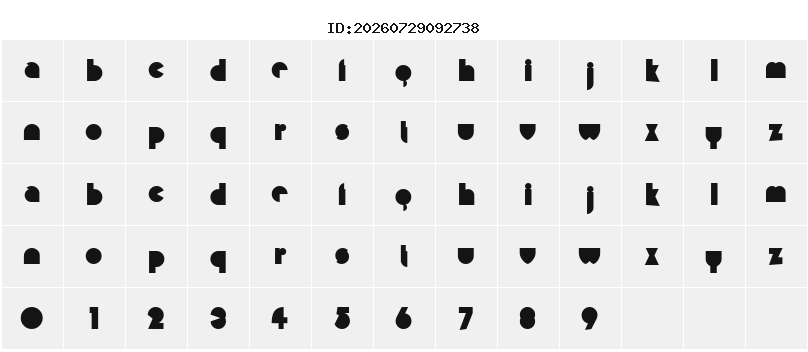
JI-Nimrod Preview
• Font Name: JI-Nimrod
• Full Font Name: JI-Nimrod
• Designer: JupiterImages
About JI-Nimrod.ttf
JI-Nimrod.ttf is a modern, elegant sans-serif font designed for ultimate readability and visual harmony. Perfect for branding, headlines, web design, and print materials.